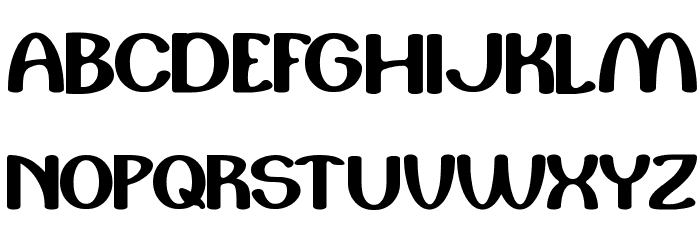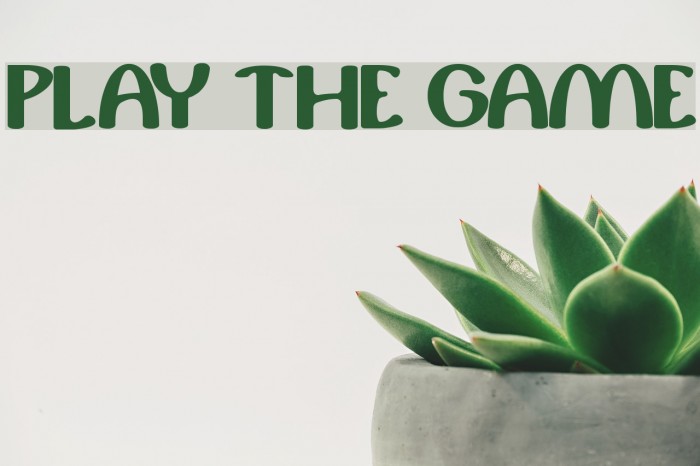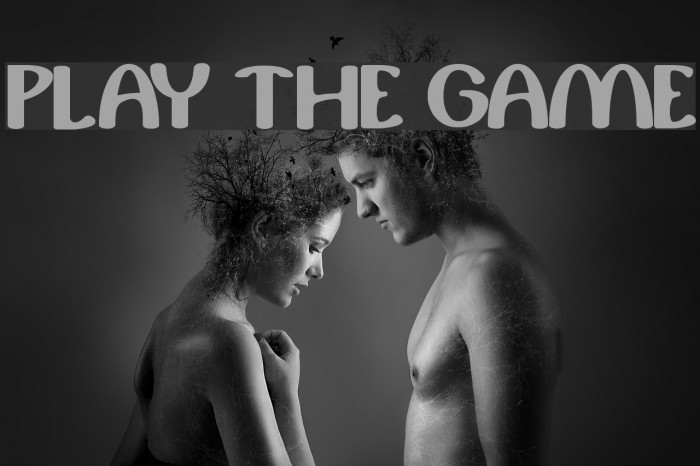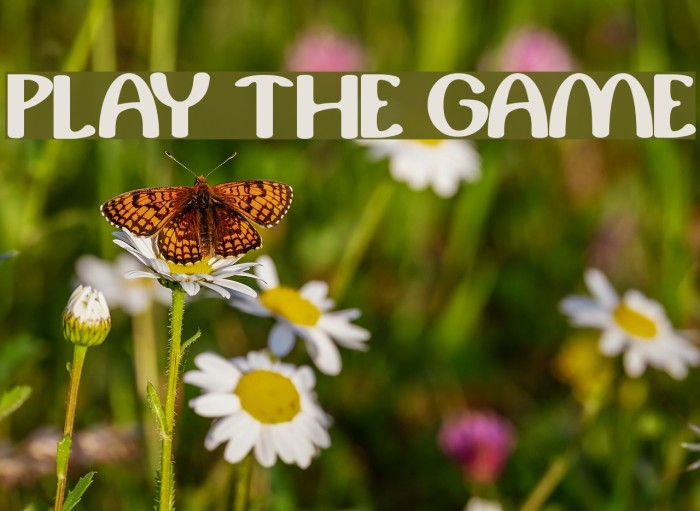
play the game Font
This font features a playful and bold design with rounded edges and a slightly whimsical flair. The characters are thick and have a consistent stroke width, giving them a strong presence. The rounded terminals and smooth curves contribute to a friendly and approachable appearance. The uppercase letters maintain a uniform height, while the lowercase letters exhibit a similar style, ensuring readability and coherence. The overall design is modern with a touch of retro charm, making it suitable for projects that aim to convey fun and creativity.
A bold, playful font with rounded edges and a whimsical style.
- Proposed Projects: Ideal for children's books, playful branding, posters, and creative projects.
- Overall Style: Playful, Modern